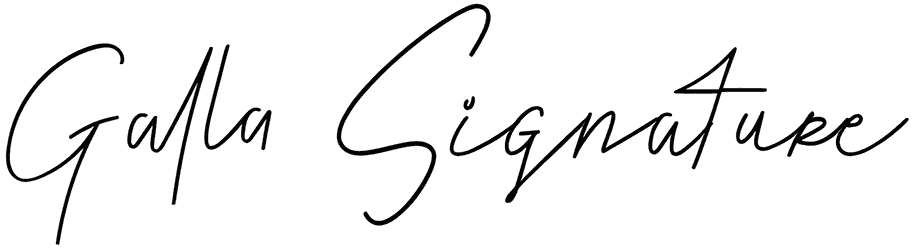
Galla Signature Font
Giving an eye-pleasing visual to your words will differentiate your layout from others, and a signature font like this one can nicely make it happen. The delicate and natural mood of the letters would throw an elegant vibe into your business card design for a designer or other layouts that you want to make engaging. Use the Galla Signature font for your new design and enjoy the final draft.